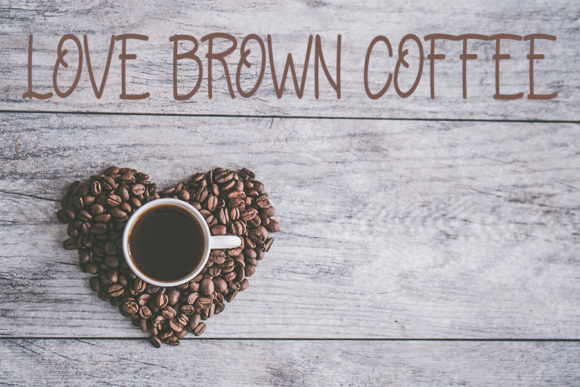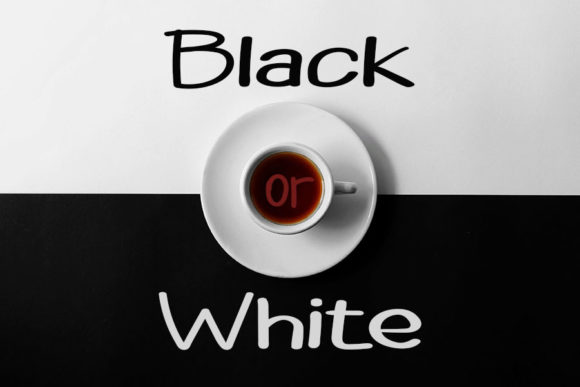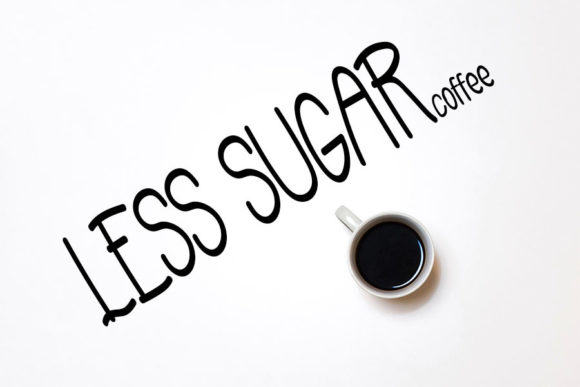
Introduction to Signature Coffee Font
Signature Coffee is a beautifully assorted sans serif font.
Distinctly fresh and exquisite, this font will elevate the look of any logos, brand names, book titles, and marketing materials .
Key Features of Signature Coffee Font
Why Choose Signature Coffee Font?
Signature Coffee Font offers exceptional quality and versatility, making it a valuable addition to your design toolkit. Whether you’re creating for personal projects or commercial use, Signature Coffee Font delivers professional results.